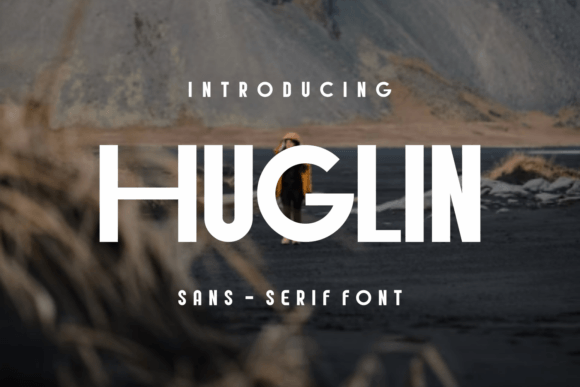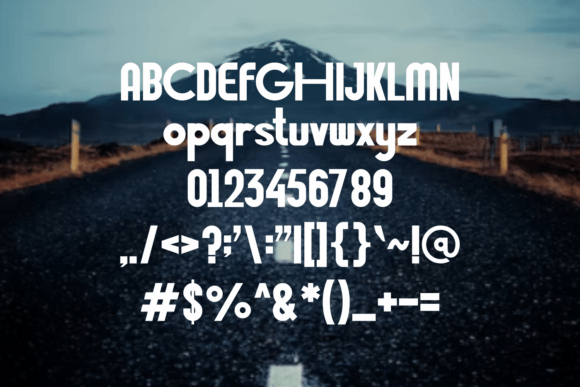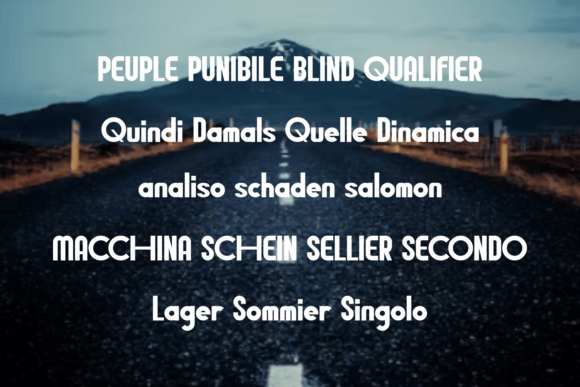
Introduction to Huglin Font
Remember the moment when you finally nailed the design for your creative project? The rush of excitement as you saw your ideas come together on screen? For designers, that feeling is what drives us to keep pushing the boundaries of creativity. And one essential tool that can make all the difference is the right font. Enter the Huglin Font, a game-changing design resource that’s sure to elevate your work.
With its clear and bold sans serif style, the Huglin Font is the perfect addition to any design project. Whether you’re working on branding, name cards, posters, or even large-scale artwork, this font is sure to make a statement. And the best part? It’s available for free download, so you can get creative without breaking the bank.
One of the standout features of the Huglin Font is its versatility. From print to screen, it looks stunning with a transparent background, making it a high-quality design resource that’s perfect for any creative project. And with its clean, modern aesthetic, it’s the perfect choice for designers who want to create visually appealing and professional-looking designs.
Key Features of Huglin Font
- Unique, modern font with a transparent background, perfect for adding a touch of elegance to your designs.
- Features a clean, minimalist design with a large x-height, making it highly legible at various font sizes.
- Perfect for use in graphic design, digital art, and other creative projects where a high-quality, modern font is required.
Honest Review: Huglin Font
I recently had the chance to work with the Huglin Font on a creative project, and I was excited to see how it would perform. Overall, I’m impressed with the results.
- High-quality design: The Huglin Font is incredibly detailed and visually appealing, making it perfect for any design project.
- Transparent background: This allows for seamless integration into any design, making it easy to use in a variety of creative projects.
- Easy to use: The font is easy to navigate and use, even for those who are not design-savvy.
- ⚠️ Limited font styles: While the Huglin Font is a great choice for body text, it may not be the best option for headlines or titles.
- ⚠️ Not ideal for small text: Due to its detailed design, the Huglin Font may not be the best choice for small text or captions.
Overall, I’m really impressed with the Huglin Font. It’s a great design resource that’s perfect for creative projects. While it may have some limitations, it’s definitely worth checking out, especially if you’re looking for a high-quality font on a budget.
Designing with Huglin Font
To get the most out of the Huglin Font, use it on a transparent background to create a high-quality design. You can also experiment with different font sizes and styles to create a unique look.
The Huglin Font is ideal for creative projects such as:
- Business cards
- Brochures
- Posters
- Infographics